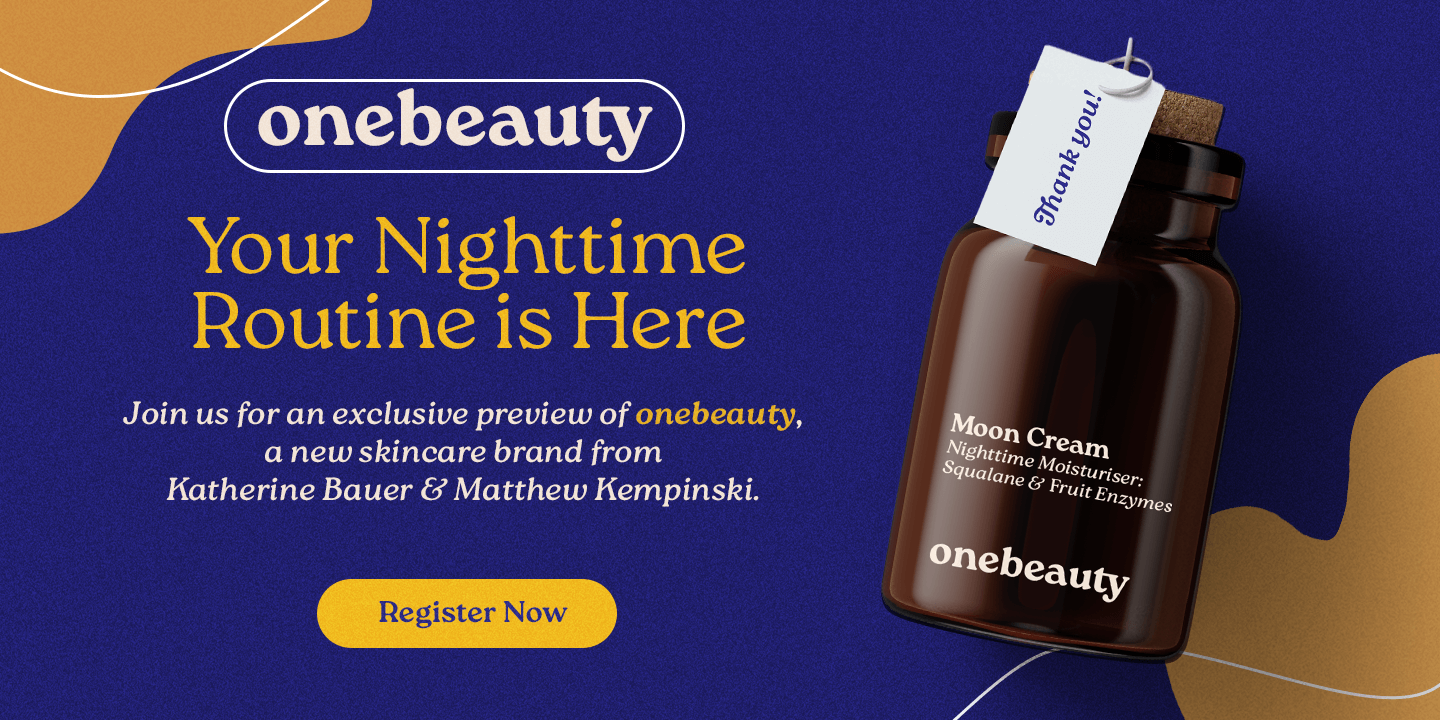
Roca Two Thin Italic
Initially started as an extension to Praline MCL, Roca transformed into a new font family - influenced by the same fonts as Praline - Windsor and Cooper Black - the hits of 60s and 70s – with a hint of Bookman.
Created in 2 styles and 6 weights that can be mixed and match, it contains 24 fonts including alternates and true italics . It is full of OpenType features – stylistic alternates and ligatures.
This multilingual font family supports most of the European languages as well as Cyrillic ones (Russian and Ukrainian).